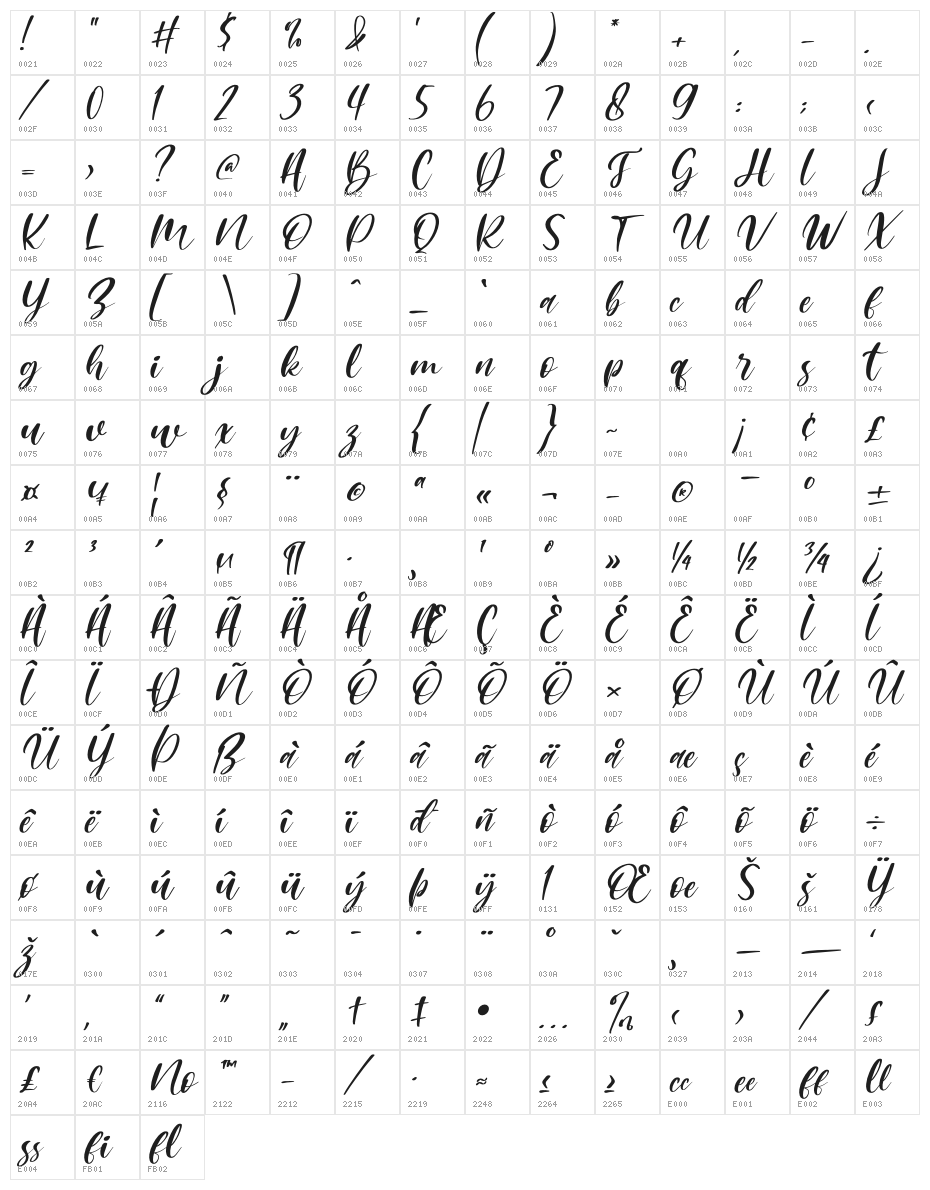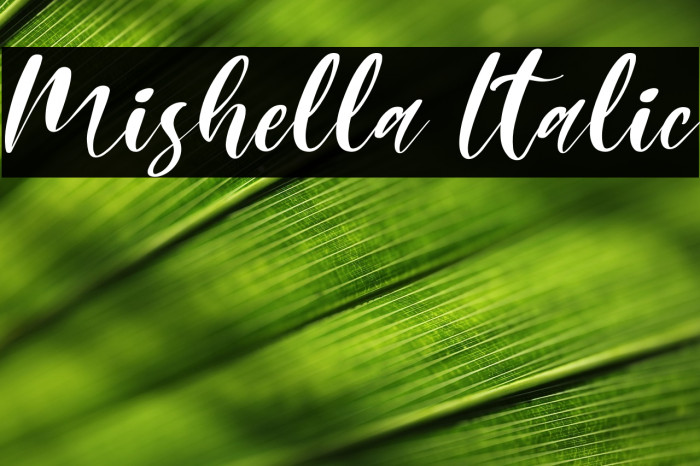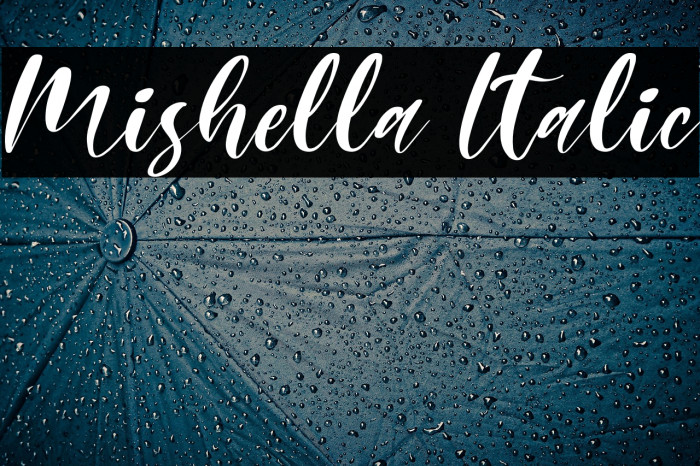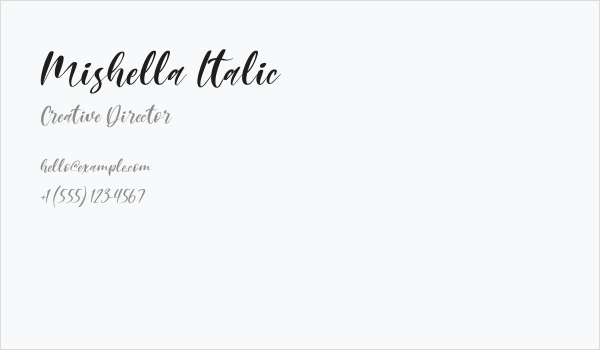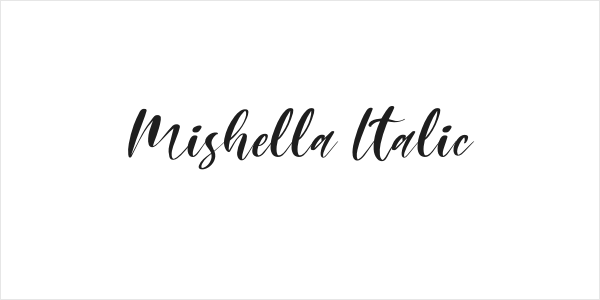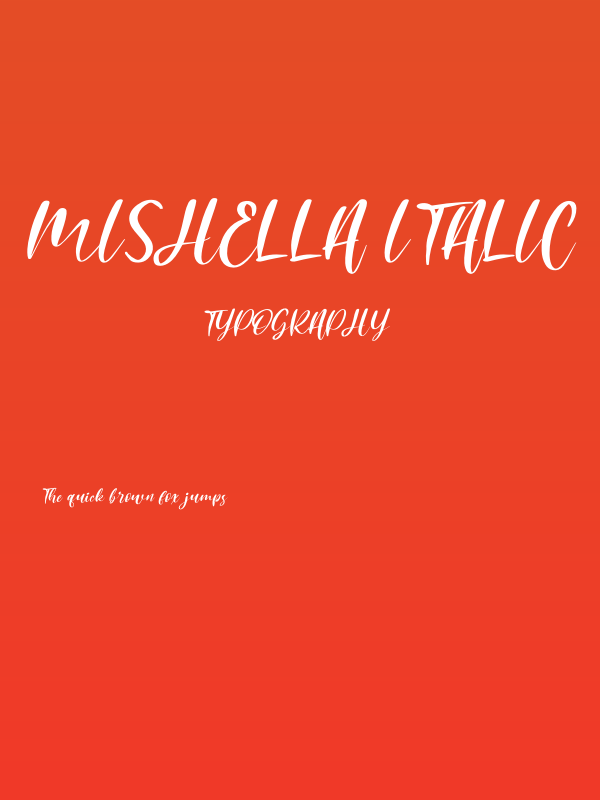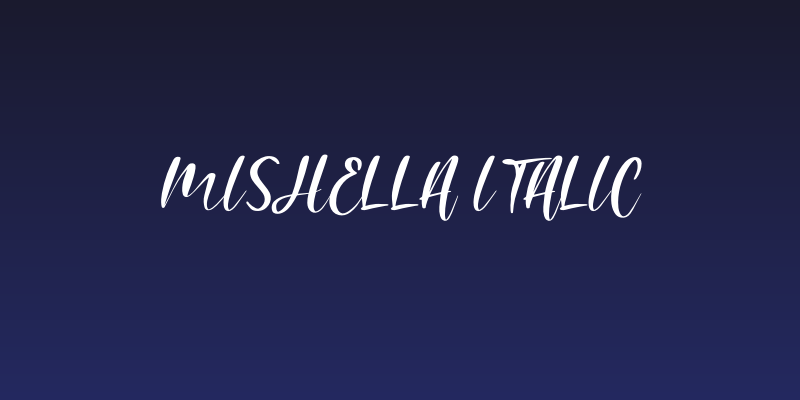
Mishella Italic Font
Mishella Italic Description
This font features an elegant and flowing script style, characterized by its smooth, cursive strokes and a sense of fluidity. The letters are connected, creating a seamless and harmonious appearance. The uppercase letters are bold and prominent, while the lowercase letters maintain a consistent rhythm. The numerals and special characters are designed to complement the overall aesthetic, with a similar emphasis on curves and fluidity. This font exudes a sense of sophistication and grace, making it suitable for projects that require a touch of elegance.
| Overall Style | Elegant, Decorative |
| Proposed Projects | Ideal for wedding invitations, greeting cards, branding, and elegant logo designs. |